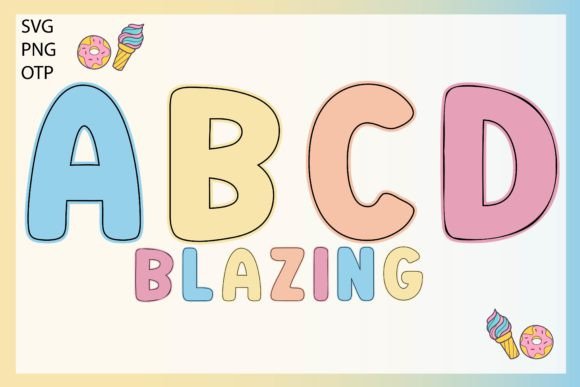
Introducing Blazing Font: The Ultimate Retro Display Font for Creative Projects
Are you looking for a font that can add a touch of romance and exquisiteness to your creative projects? Look no further than Blazing Font, a versatile, stylish, and playful retro display font perfect for a wide spectrum of applications. In this article, we’ll dive into the features and benefits of Blazing Font, and explore how you can use it to elevate your designs.
What is Blazing Font?
Blazing Font is a retro display font that is designed to bring a touch of nostalgia and glamour to your designs. With its stylish and playful aesthetic, it’s perfect for creating eye-catching headlines, greeting cards, and other creative projects. The font is available as a color font (Opentype-SVG) and is compatible with popular design software such as PhotoShop, Illustrator, Silhouette, and Inkscape.
Key Features of Blazing Font
- Versatile: Blazing Font is suitable for a wide range of applications, from greeting cards to headlines, and more.
- Stylish: The font features a stylish and retro aesthetic that’s sure to turn heads.
- Playful: Blazing Font has a playful edge that’s perfect for adding a touch of whimsy to your designs.
- Color Font: The font is available as a color font (Opentype-SVG), allowing you to add depth and dimension to your designs.
How to Use Blazing Font in Your Creative Projects
Blazing Font is easy to use and can be incorporated into a variety of creative projects. Here are a few ideas to get you started:
- Greeting Cards: Use Blazing Font to create eye-catching greeting cards for special occasions such as birthdays, weddings, and holidays.
- Headlines: Add a touch of glamour to your headlines with Blazing Font, perfect for magazine covers, posters, and more.
- Social Media Graphics: Use Blazing Font to create eye-catching social media graphics that are sure to stand out.
- Branding: Incorporate Blazing Font into your branding materials, such as logos, business cards, and letterheads.
Tips for Getting the Most Out of Blazing Font
Here are a few tips for getting the most out of Blazing Font:
- Experiment with Colors: Take advantage of the color font feature and experiment with different colors to add depth and dimension to your designs.
- Play with Typography: Don’t be afraid to experiment with different typography techniques, such as kerning and leading, to create a unique look.
- Combine with Other Fonts: Combine Blazing Font with other fonts to create a unique and eye-catching design.
Blazing Font is a versatile, stylish, and playful retro display font that’s perfect for adding a touch of romance and exquisiteness to your creative projects. With its wide range of applications, technical compatibility, and ease of use, Blazing Font is a must-have for any designer or creative looking to elevate their designs.